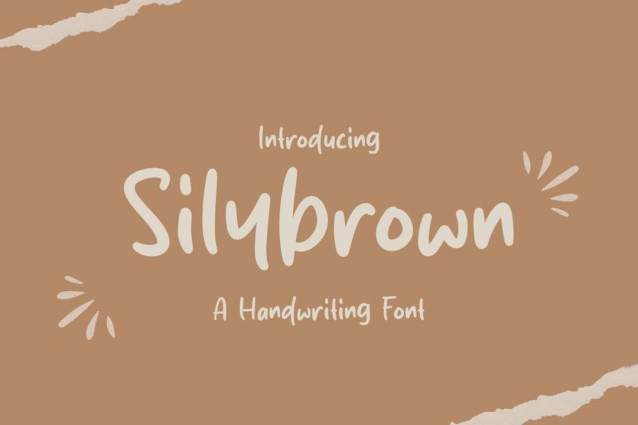
Silybrown Font
Silybrown Font is a simple and friendly handwritten font. Its natural and unique style makes it incredibly fitting to a large pool of designs. The only limit is your imagination!